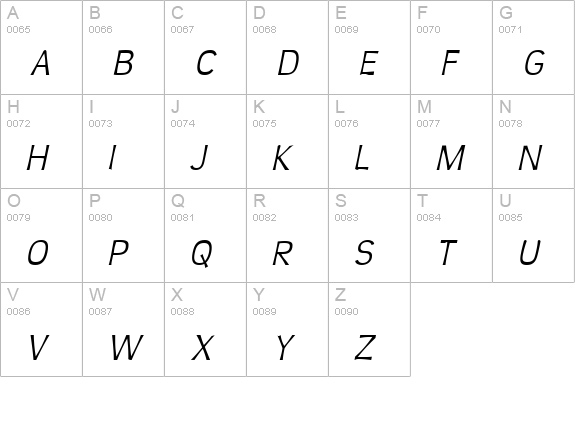
Teen Light Italic is a refined, elegant, italic variant in the Teen typeface family \xE2\x80\x94 well suited to elegant body text, refined sub-headings, and luxury branding.
Teen Light Italic is a font that exudes elegance and sophistication. Designed with a youthful touch, it strikes the perfect balance between playfulness and professionalism. Its italicized form adds a touch of flair to any project, making it ideal for creating eye-catching headings, titles, and logos. This font is the perfect choice for teenagers and young adults who want to add a modern and stylish touch to their designs. Its slender and delicate curves create a sense of elegance, while its slightly slanted posture adds a dynamic and energetic vibe. One of the best features of Teen Light Italic is that it is free to download. You can easily access this font at FontsMarket.com, where it is available for free download in various formats. Whether you are working on a personal project or a professional one, this font is a valuable addition to your collection. With its freely available download, Teen Light Italic offers an incredible opportunity for designers and creators to enhance their work without any financial constraints. It allows individuals to explore their creativity without worrying about the cost of premium fonts. So, if you are looking for a versatile and visually appealing font that is freely accessible, Teen Light Italic is the perfect choice. Download it today from FontsMarket.com and add a touch of elegance and style to your designs.